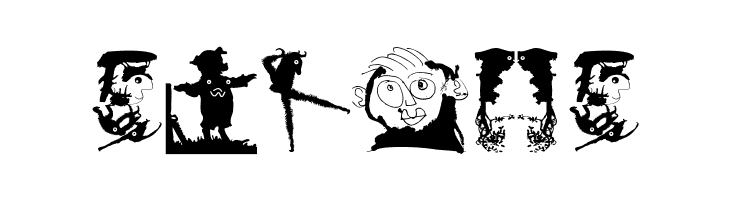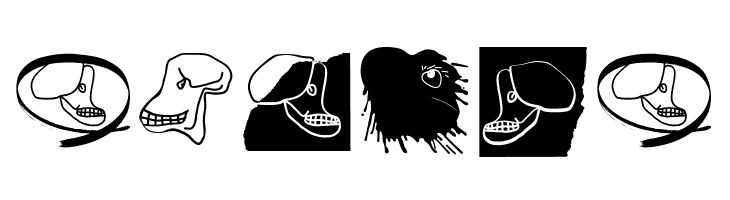
• AParliamentofOwls
Ornate, owl-themed pictorial glyph set.
• AParliamentofOwls2
A display font composed of detailed owl illustrations for each character.
• AParliamentofOwls3
A decorative font composed of owl illustrations for each character.
• Aparta
A bold, modern font with sharp angles and smooth curves.
• Apartment Life JL
A decorative font with illustrations depicting apartment life elements.
• Apish
A whimsical and bold font featuring cartoonish skull illustrations.
• ApishOne
A whimsical and artistic display font with unique illustrated characters.
• Apollo ASM
A bold, decorative font with intricate swirls and flourishes.
• Apollo ASM
A decorative and ornate font with intricate swirls and embellishments.
• Apollo ASM Regular
A bold, decorative font with intricate swirls and embellishments.